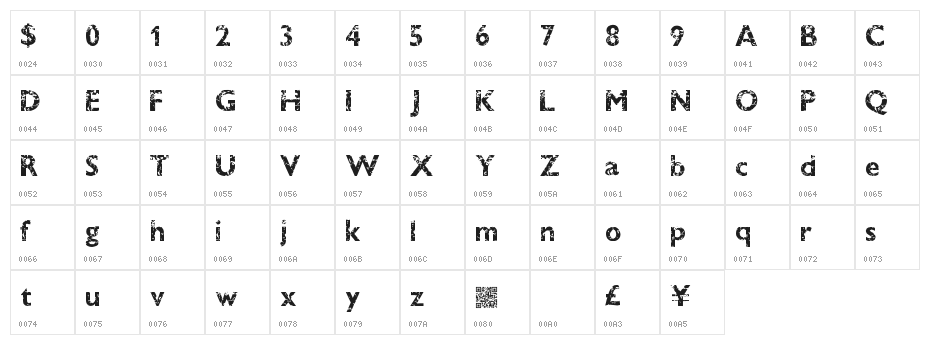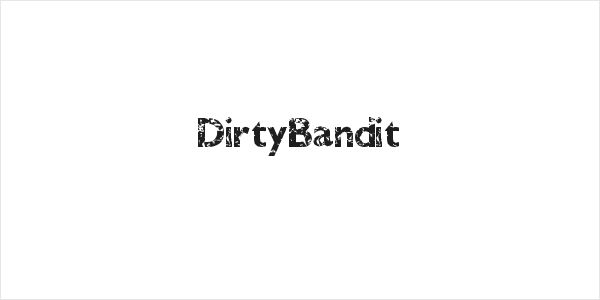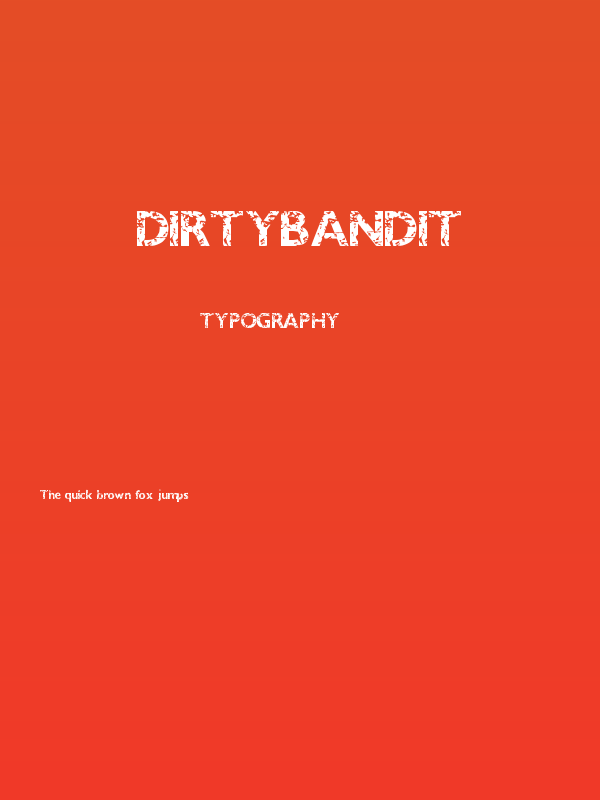
DirtyBandit Font
DirtyBandit Description
This font features a rugged, distressed appearance, giving it a gritty and worn look. The characters are bold and heavily textured, with irregular edges that create a sense of movement and chaos. The uppercase and lowercase letters maintain a consistent style, with a strong emphasis on a rough, eroded texture that suggests a vintage or industrial feel. The numbers and special characters follow the same design, ensuring uniformity across all elements. This font's unique style makes it stand out, perfect for projects that require a bold statement or an edgy aesthetic.
| Overall Style | Vintage, Industrial |
| Proposed Projects | Ideal for posters, album covers, branding for edgy or vintage-themed products, and any design needing a bold, distressed look. |